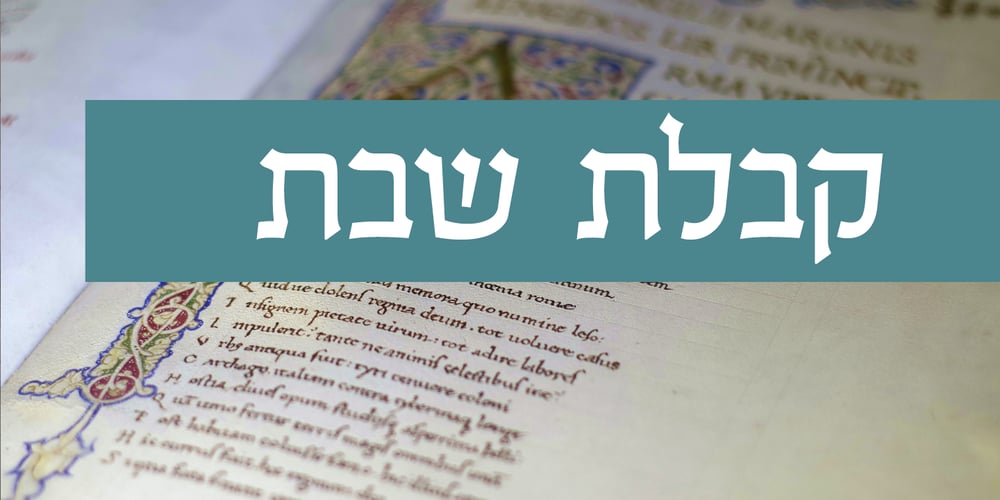
Tzoba MF
Tzoba MF font
Tzoba MF Font Family was designed by Eliyahu Fried and published by Masterfont. Tzoba MF contains 1 styles and family package options. Inspired by old manuscript serif font, this low contrast font makes it high legible for long texts.